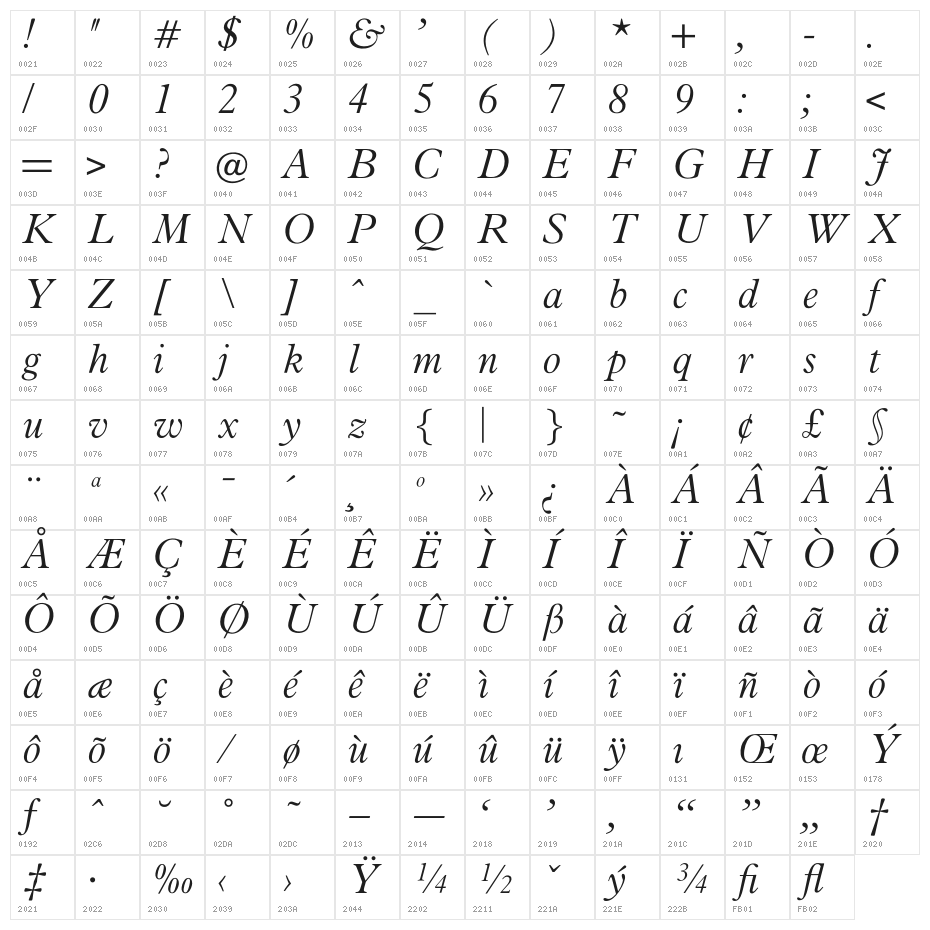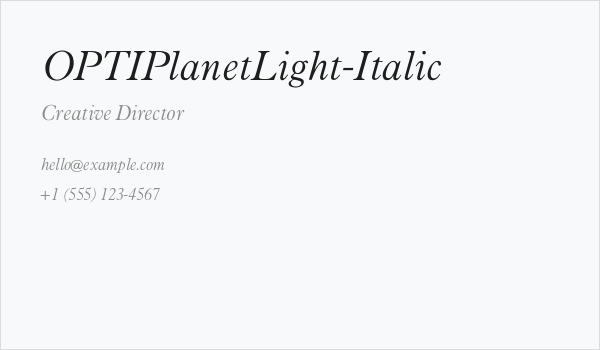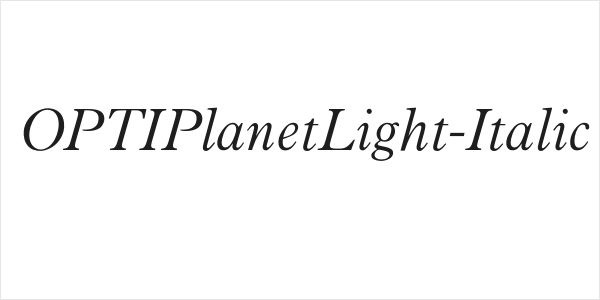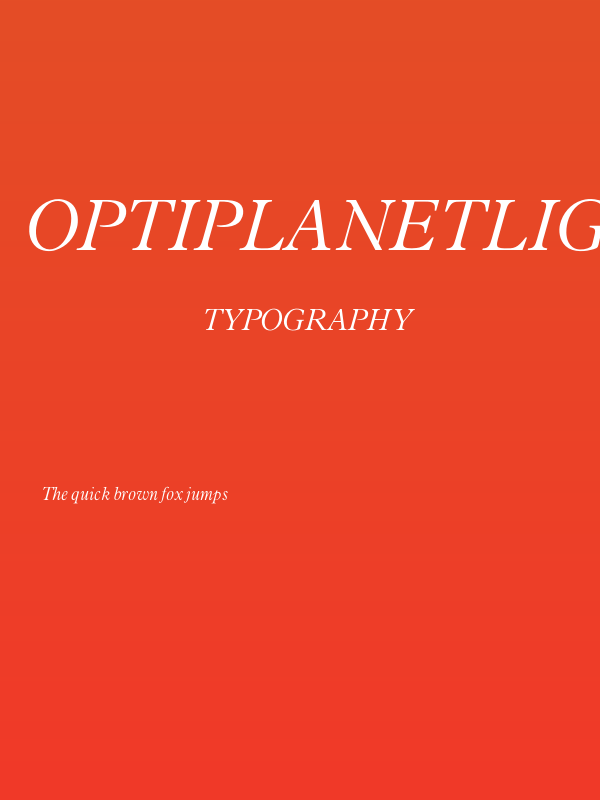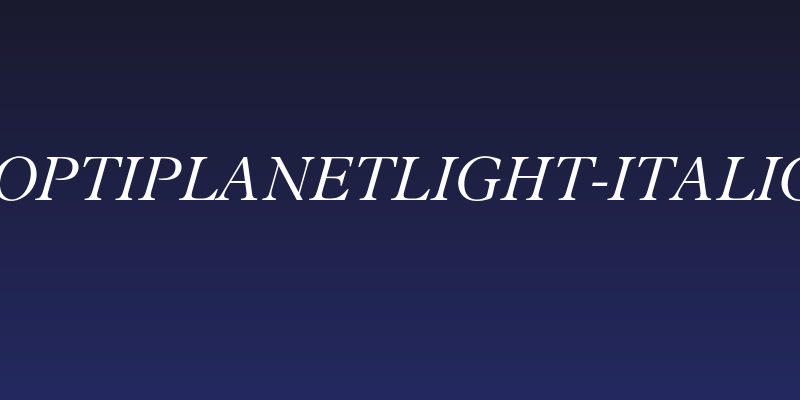
OPTIPlanetLight-Italic Font
OPTIPlanetLight-Italic Description
This elegant serif font exhibits a refined and sophisticated style, characterized by its light weight and italicized form. The letters have a graceful slant, enhancing their fluidity and elegance. The strokes are thin, contributing to a delicate appearance, while maintaining readability. The font's design is classic, with traditional serif elements that add a touch of formality and timelessness. It features a medium contrast between thick and thin strokes, which adds to its visual appeal. The character spacing is normal, ensuring clarity and legibility across various uses.
| Proposed Projects | Ideal for formal invitations, elegant branding, book covers, and editorial design. |